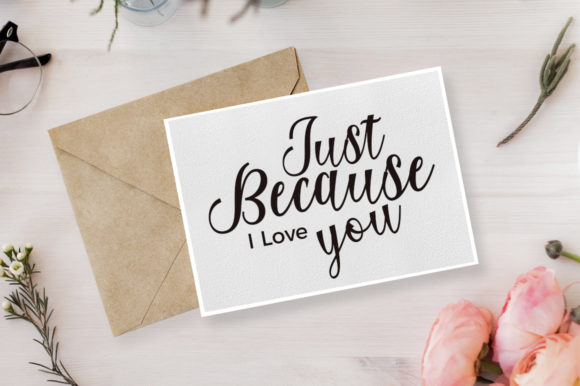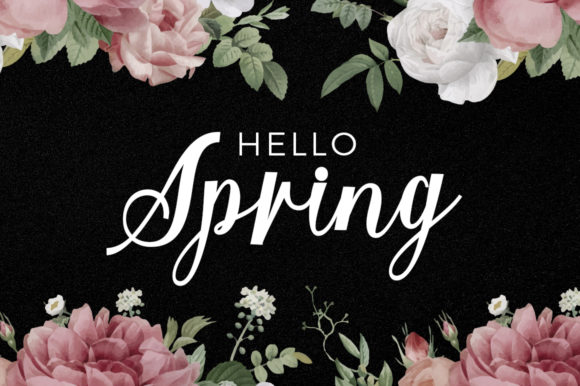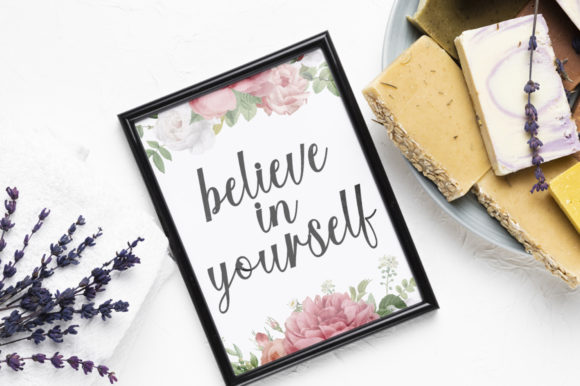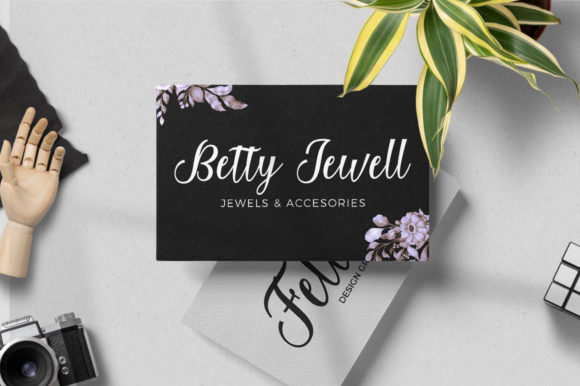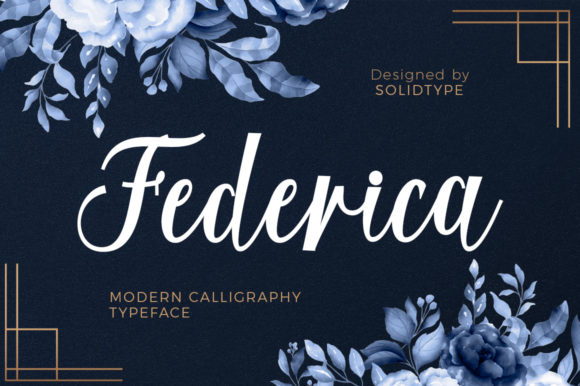
Federica Font: Elevate Your Design with Classic Elegance and Modern Twists
In the world of typography, few fonts manage to strike a balance between classic elegance and modern flair. Federica Font is one such exceptional typeface that brings a unique style to any design project. Inspired by the timeless beauty of classic typography, Federica injects a fresh and contemporary spin, making it an ideal choice for designers and crafters looking to elevate their creations.
The Essence of Federica Font
Federica is more than just a script font; it’s a versatile tool that can transform any design project. Its roots in classic typography are evident in its elegant lines and sophisticated charm. However, what sets Federica apart is its ability to adapt and evolve, bringing a modern twist to traditional aesthetics. This unique blend makes it perfect for a wide range of applications, from headlines and titles to longer blocks of text.
One of the standout features of Federica Font is its incredible versatility. It shines brightest in headlines of all sizes, where its classic charm and modern flair can be truly appreciated. But its adaptability doesn’t stop there. Federica also excels in blocks of text that require both maximum and minimum variations. This flexibility makes it an invaluable asset for designers working on projects that demand a high level of customization and creativity.
Applications Across Different Mediums
Federica’s adaptability extends beyond just print or digital platforms. This fantastic script font is equally at home in various mediums, including:
- Web Design: Bring a touch of sophistication to your website with Federica. Its legibility and style make it perfect for headings, titles, and even short paragraphs.
- Print Media: Whether you’re working on a luxury brand brochure, an elegant wedding invitation, or a high-end product catalog, Federica adds a level of refinement that’s hard to match.
- Moving Images: For video content, presentations, or digital storytelling, Federica’s clarity and aesthetic appeal ensure your message is delivered with style and impact.
- Anything Else: Beyond these, Federica’s unique charm can enhance a wide array of design projects, from packaging to advertising, and more.
Why Choose Federica Font?
For designers and crafters, the choice of font can make or break a project. Here are a few reasons why Federica stands out:
- Unique Style: Federica brings its own unique style to the table, setting it apart from more generic fonts.
- Elegance and Modernity: It strikes the perfect balance between classic elegance and modern twists, making it suitable for a broad spectrum of design needs.
- Versatility: Its ability to shine in various sizes and applications makes it a go-to font for projects requiring flexibility.
Federica Font is a remarkable addition to the world of typography, offering a blend of classic inspiration and modern style that’s hard to find. Its versatility, elegance, and adaptability make it an excellent choice for designers and crafters looking to add a touch of sophistication and uniqueness to their projects. Whether you’re working on a website, a print project, or anything in between, Federica is sure to make your designs stand out. Embrace the beauty and flexibility of Federica Font, and elevate your design work to new heights of creativity and impact.